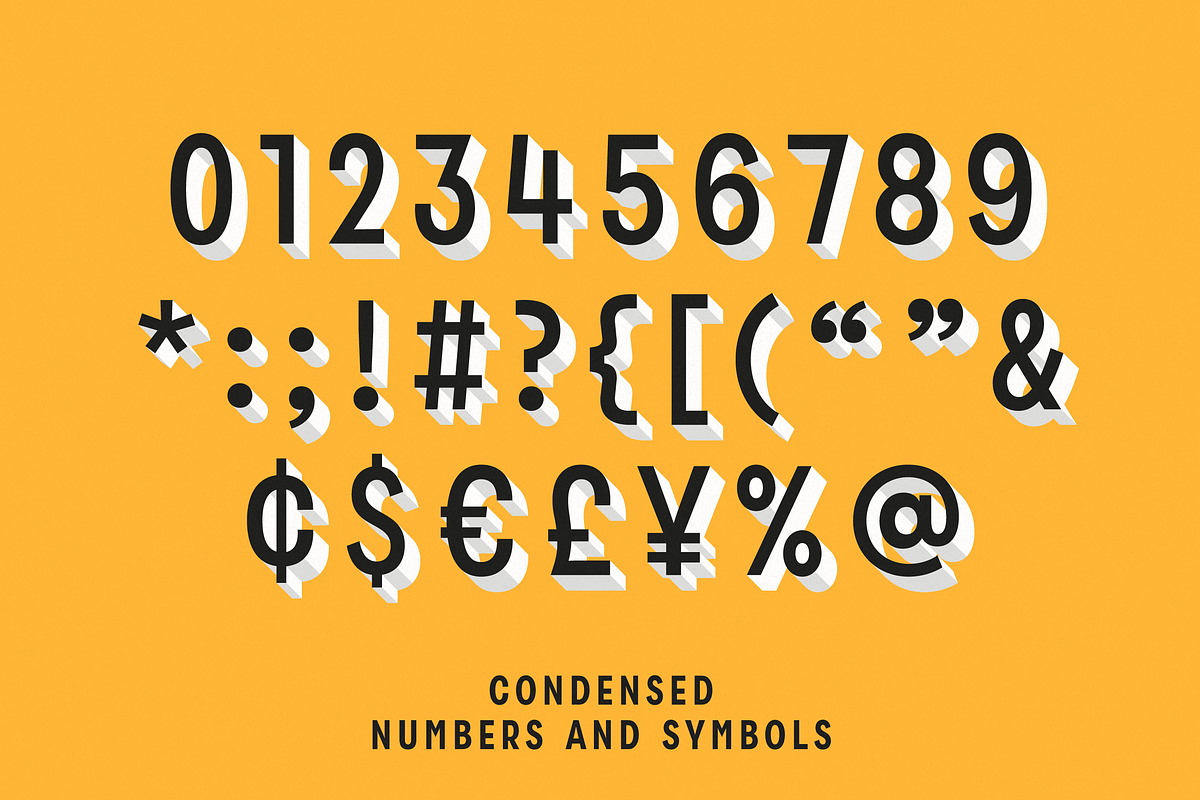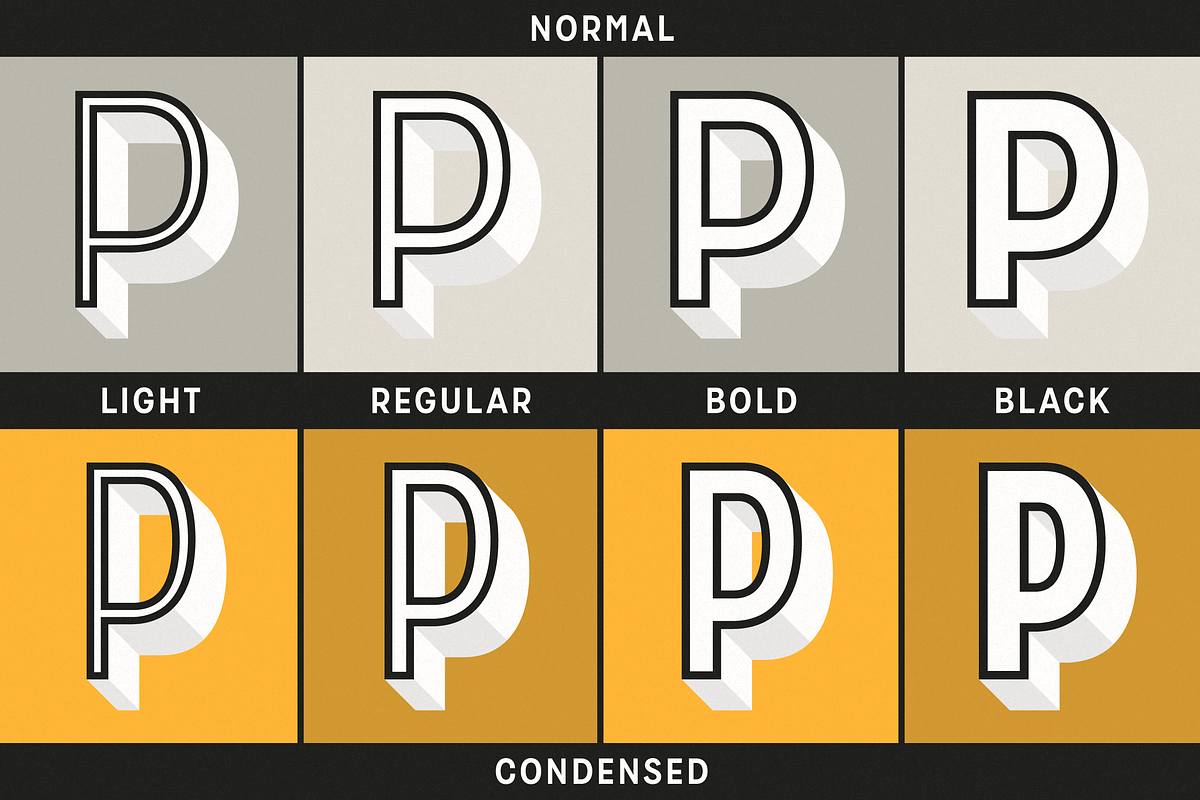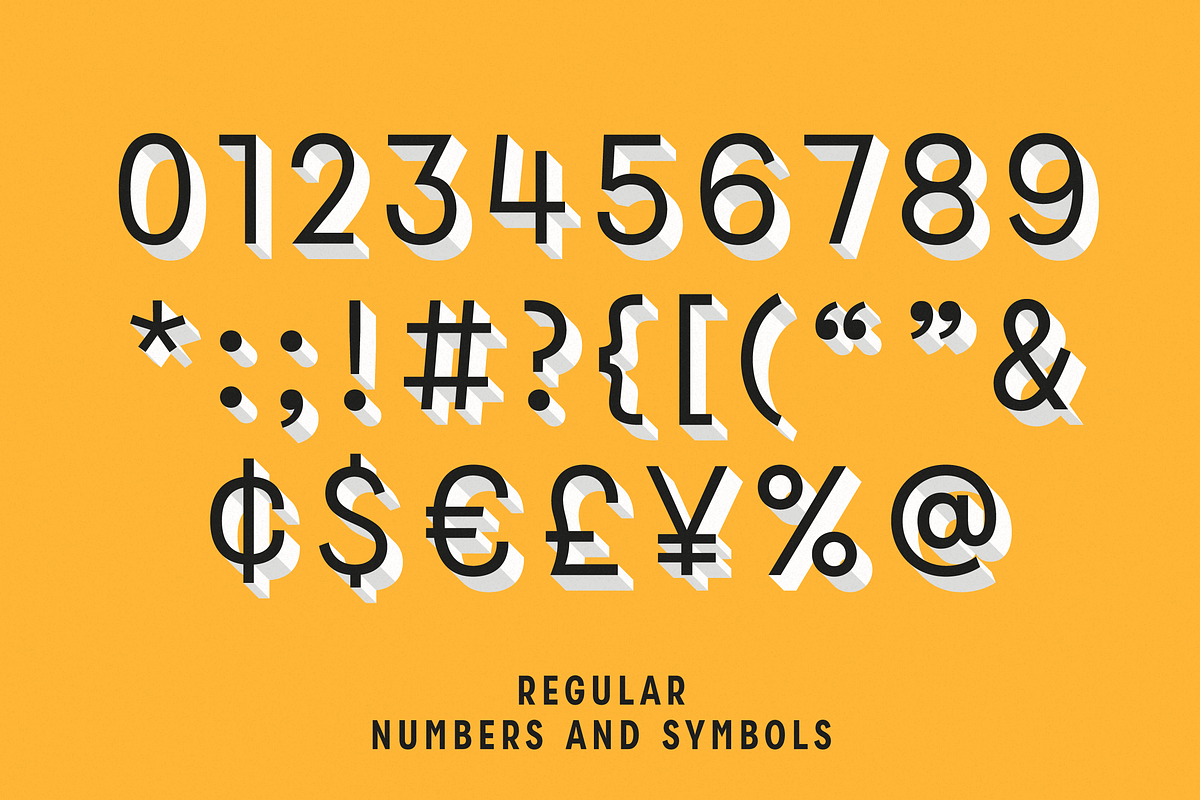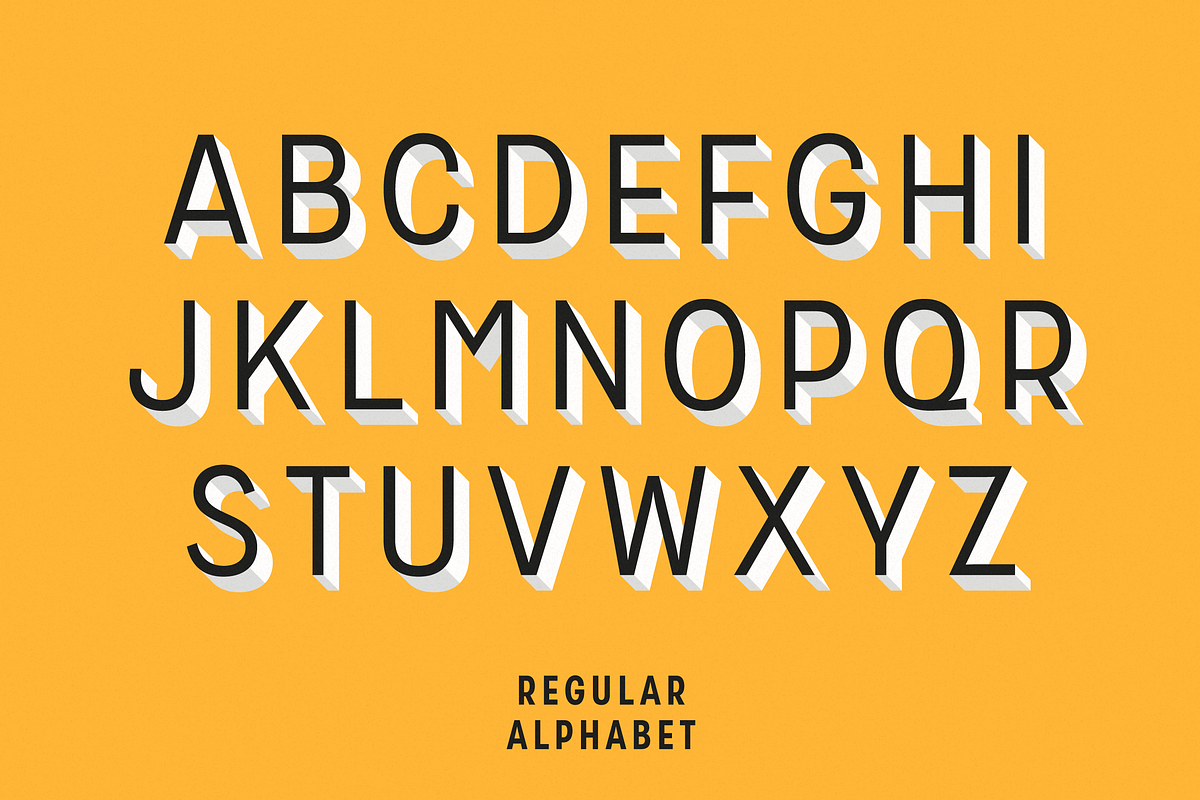
Zippy Gothic - A Huge Layered Family
Huge update: now a massive 32-font family featuring 3D, 3D shadow and outline layering styles!
Zippy Gothic is a narrow, low-waisted sans serif display typefamily in four weights and two widths, making it super versatile.
AND, each of those 8 styles has its own outline, 3D, and 3D shadow versions to layer-up for instant, no-hassle awesome results.
The layering styles overlap with each other, so you'll want to stack them up like this:
- Outline (top layer)
- Normal
- 3D Shadow
- 3D (bottom layer)